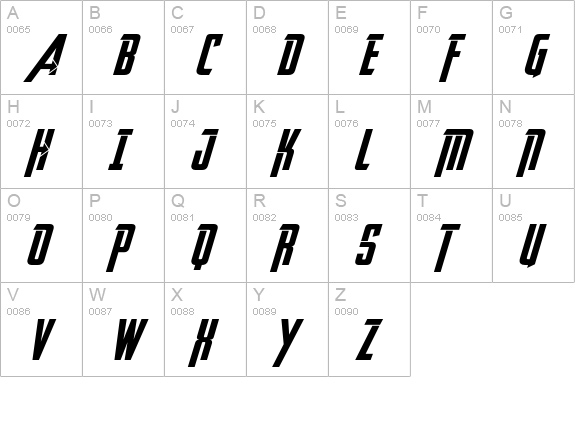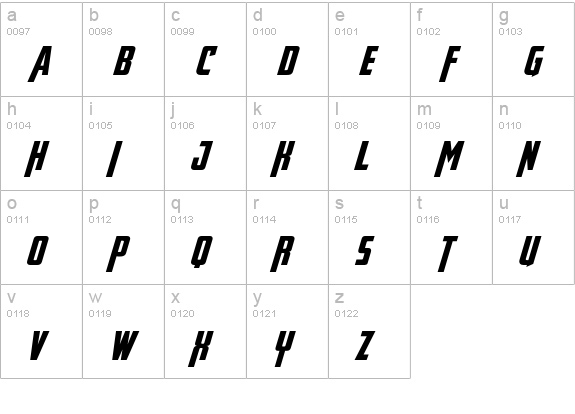
Avengeance Heroic Avenger Bold Italic Font Details
Avengeance Heroic Avenger Bold Italic is a strong, high-contrast, italic variant in the Avengeance typeface family \xE2\x80\x94 well suited to headlines, attention-grabbing titles, and strong calls-to-action.
Introducing Avengeance Heroic Avenger Bold Italic font, a powerful and captivating typeface that exudes strength, determination, and a touch of modernity. This font is a perfect choice for those seeking to add a bold and impactful touch to their designs. Avengeance Heroic Avenger Bold Italic font combines the best of both worlds, with its bold and commanding presence, while also showcasing a subtle touch of elegance through its italicized characters. The result is a font that effortlessly captures attention and leaves a lasting impression. With its strong and bold letterforms, Avengeance Heroic Avenger Bold Italic font is ideal for a wide range of design projects. Whether it's eye-catching headlines, striking logo designs, or attention-grabbing posters, this font is sure to make a statement and convey a sense of power and heroism. But what makes Avengeance Heroic Avenger Bold Italic font even more appealing is that it is freely available to download at FontsMarket.com. This means that designers, creators, and enthusiasts alike can get their hands on this remarkable font without any cost. It's a wonderful opportunity to unleash your creativity and incorporate this font into your next project. So, if you're searching for a font that embodies strength, determination, and a touch of modernity, look no further than Avengeance Heroic Avenger Bold Italic font. Download it for free at FontsMarket.com and let your designs soar to new heights.